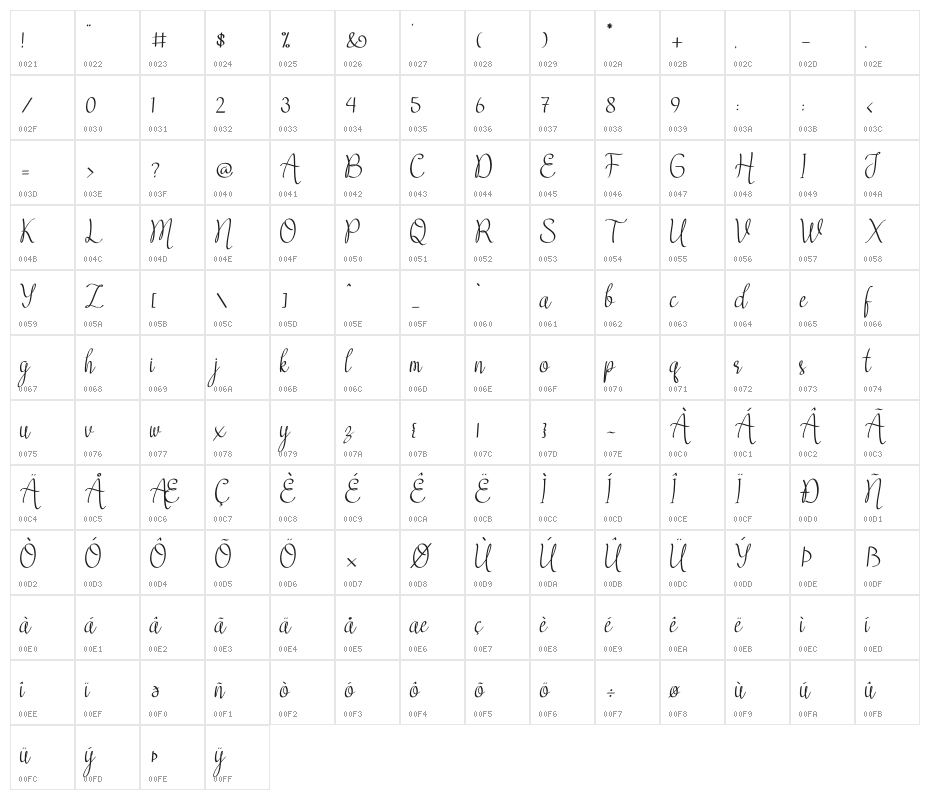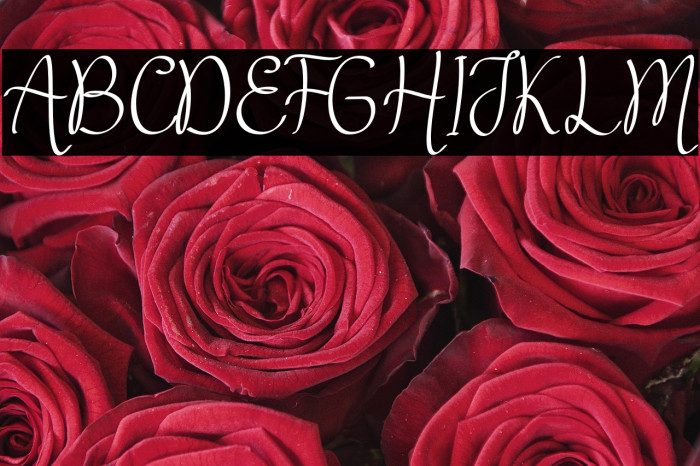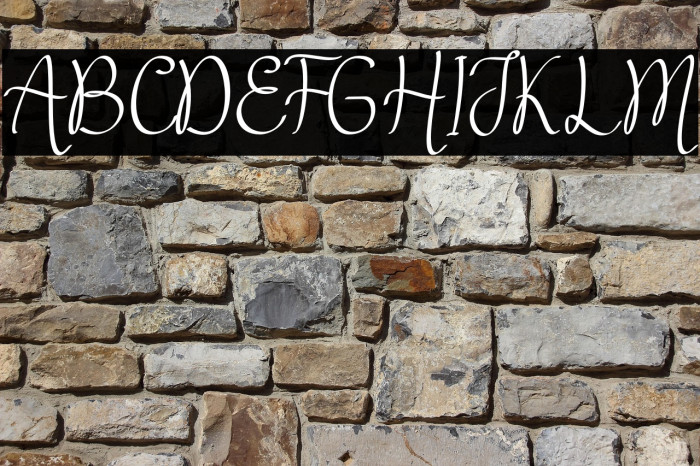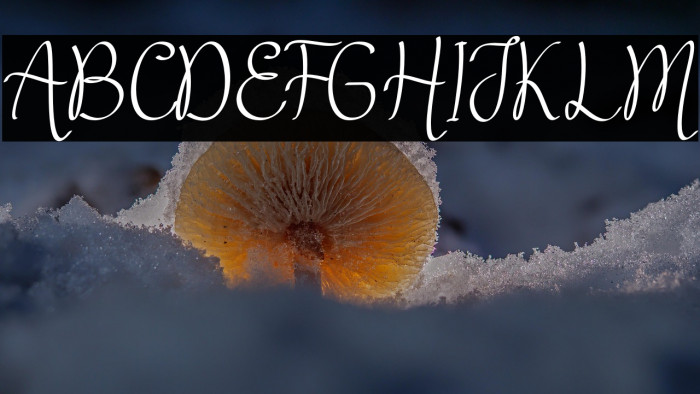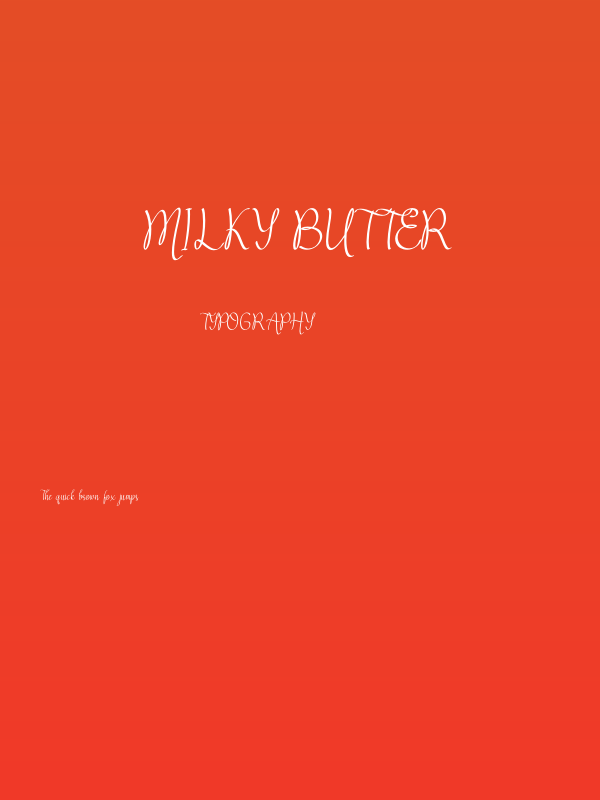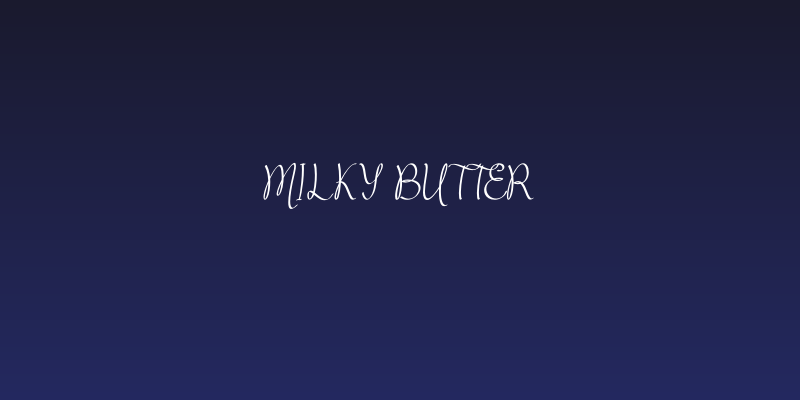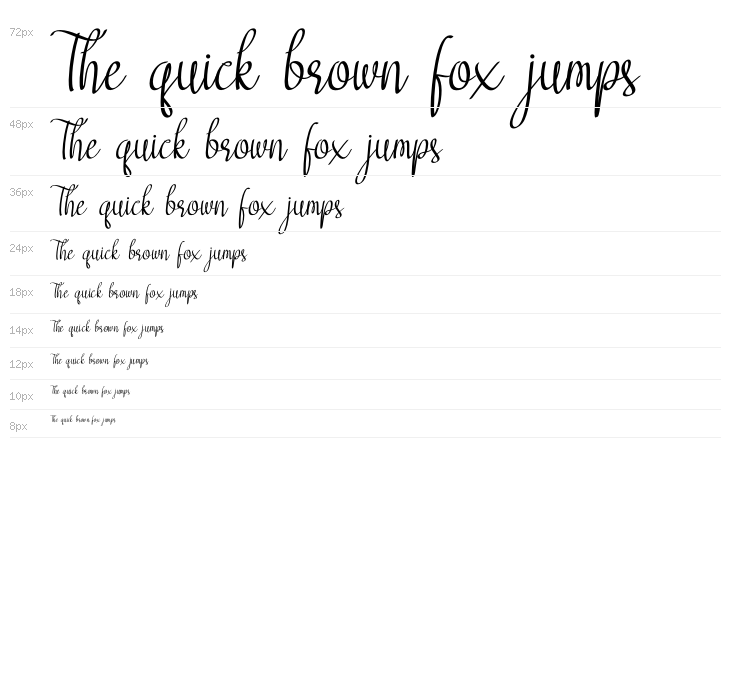
milky butter Font
milky butter Description
This font features an elegant and flowing script style, characterized by its smooth, cursive strokes and graceful curves. The uppercase letters are tall and slightly narrow, with distinctive loops and swirls that add a touch of sophistication. The lowercase letters maintain a consistent flow, with a slightly slanted orientation that enhances the handwritten appearance. Numbers are clear and legible, while special characters are designed to complement the overall aesthetic. The font's delicate lines and artistic flair make it suitable for projects that require a personal and refined touch.